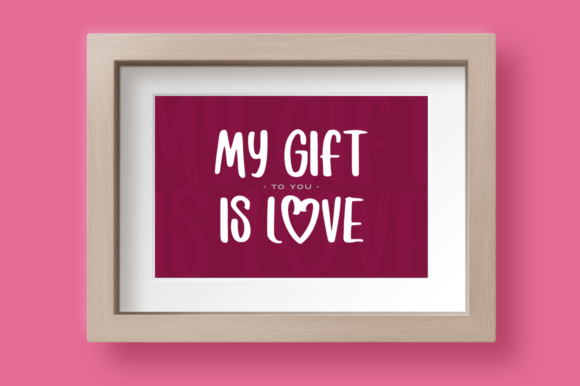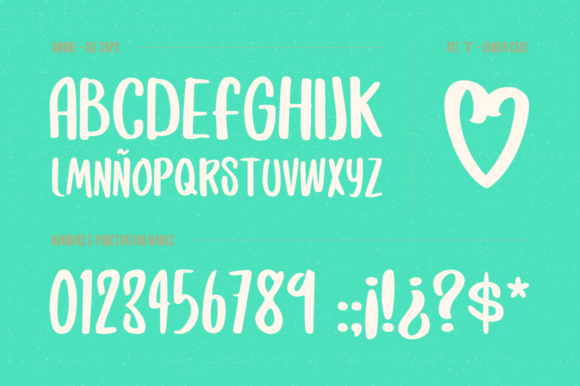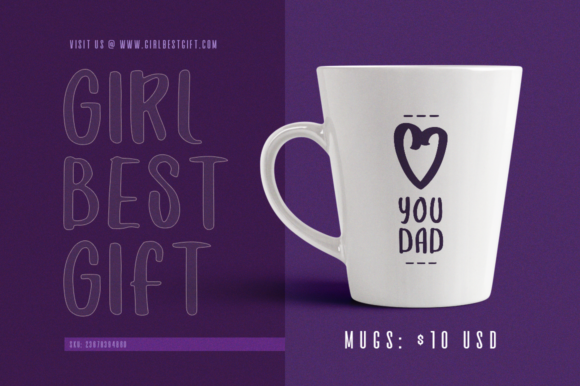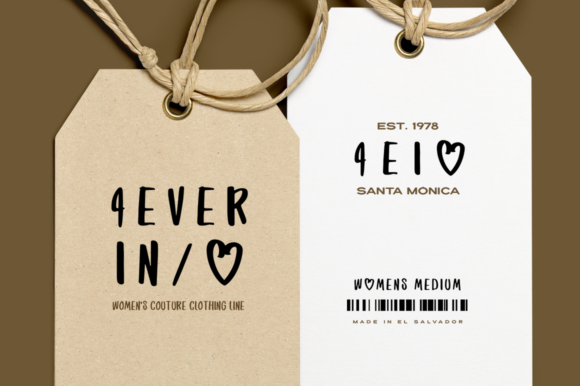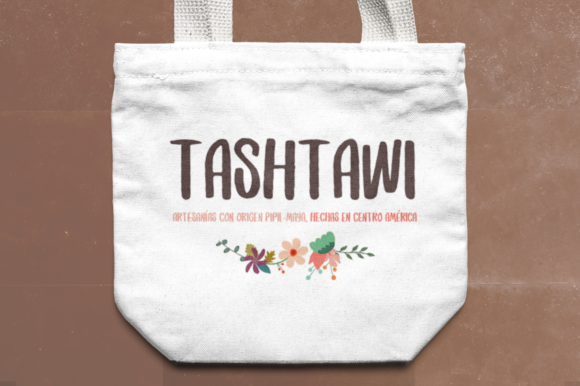
The Amore Font: A Bold and Lovable Handwritten Delight
I still remember the design project that led me to discover the Amore font. I was working on a romantic getaway brochure, and my client wanted a font that would evoke feelings of warmth and love. I scoured the internet, trying out font after font, but nothing seemed quite right. That was until I stumbled upon Amore – a bold, yet lovable handwritten font that instantly captured the essence of romance.
An Honest Review of Amore Font
What I Love About Amore Font
- ✨ Unique and eye-catching design: Amore font stands out from the crowd with its bold twist on traditional handwritten fonts.
- ✅ Perfect for romantic designs: The font’s elegant and cursive feel makes it ideal for designs that require a touch of romance.
- 💕 Versatile and adaptable: Amore font can be used for a wide range of design projects, from wedding invitations to branding and advertising.
While Amore font is an excellent choice for many design projects, there are a few quirks to be aware of:
- 🤔 Limited use for body text: Due to its bold nature, Amore font may not be the best choice for lengthy body text. It’s better suited for headings, titles, and short paragraphs.
- ⚠️ Glyph and character limitations: As with any font, there may be limitations to the glyphs and characters available. Make sure to review the font’s character set before using it for a project.
- Experiment with OpenType features, such as Stylistic Alternates and Swashes, to add more flair to your design.
The Story Behind Amore Font
Amore font was designed with love and care by a talented type designer who wanted to create a font that would capture the essence of romance and relationships. The designer’s inspiration came from traditional handwritten fonts, with a bold twist to make it stand out in modern designs.
Q: What is Amore font best used for?
A: Amore font is perfect for designs that require a romantic and elegant feel, such as wedding invitations, Valentine’s Day cards, and love letters.
Q: Is Amore font suitable for body text?
A: While Amore font can be used for short paragraphs, it’s not ideal for lengthy body text due to its bold nature. It’s better suited for headings, titles, and short paragraphs.